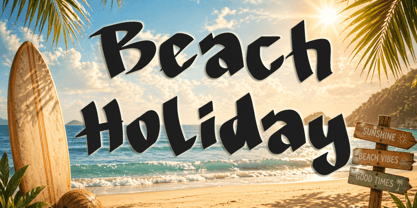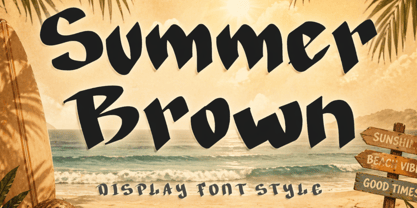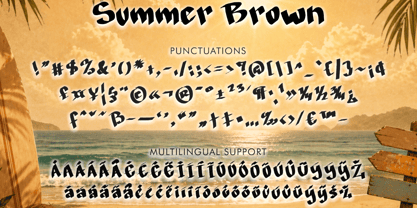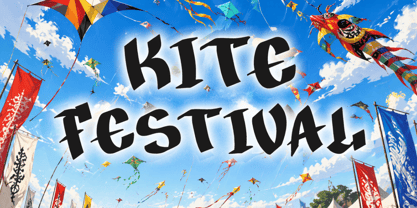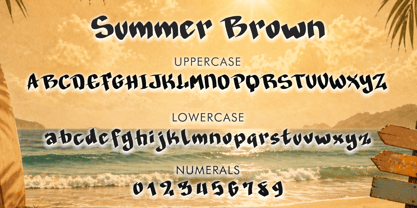
Summer Brown
by Yoga Letter
The Summer Brown Font Family was designed by Isroni Yoga Prasetya and published by Yoga Letter. Summer Brown contains 1 styles. More about this family
"Summer Brown" is a cute display font. It features uppercase and lowercase letters, numbers, punctuation, and multilingual support. It's suitable for Easter, vacation, holiday, banners, posters, animals, cats, dogs, holidays, spring, summer, christmas, back to school, Halloween, movie titles, comic titles, stickers, posters, banners, prints, branding, and more.
Designers: Isroni Yoga Prasetya
Foundry: Yoga Letter